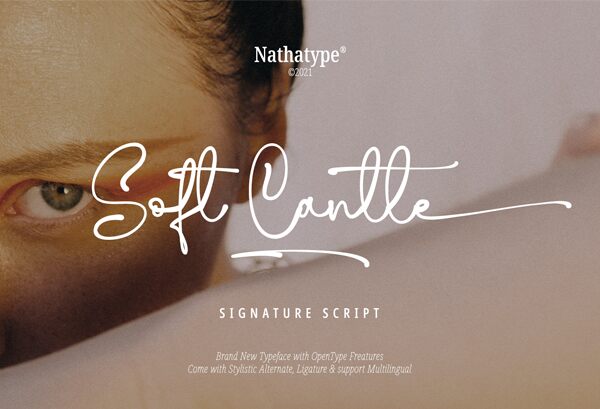
Soft Cantle, a signature light font designed by Donis Miftahudin, is the perfect fit for any creative project. With its whimsical and elegant character, this font can be used for everything from wedding invitations to logos and advertisements.
Soft Cantle A Script Font
Soft Cantle is a handcrafted font designed to bring your branding to life and add a touch of elegance,
modernity and style. Perfect for social media branding projects, fashion designs, printed quotes,
packaging, or even as a stylish text overlay to any background image.